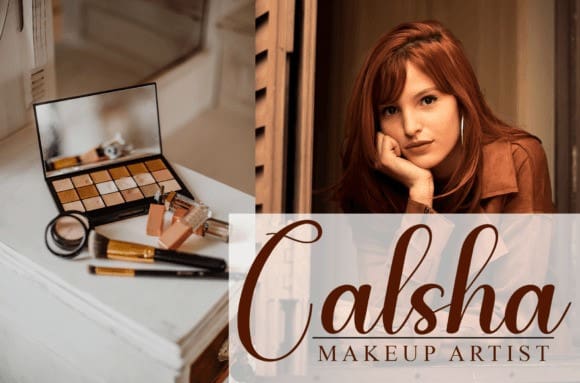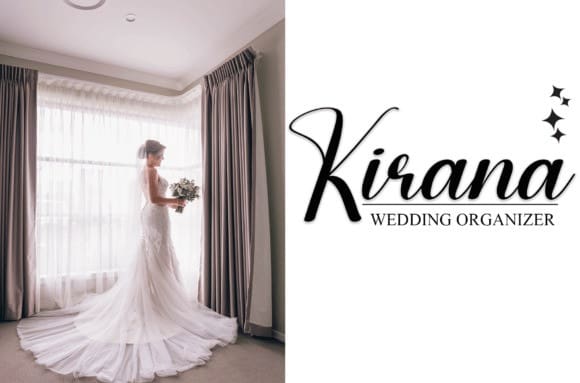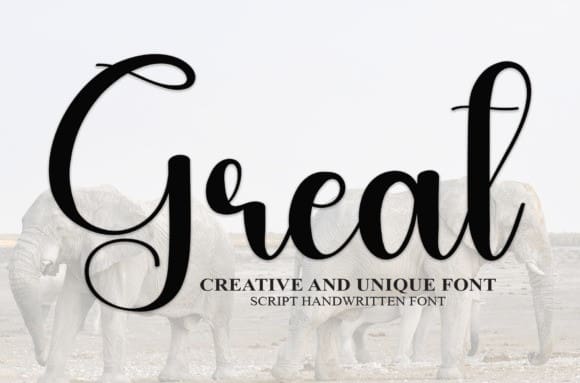
Great Script Typeface
Great Script Typeface is a sweet and friendly handwritten font. Fresh and neat, this font is ideal for writing wedding invitations, cards, or any other design that might need a fun touch!